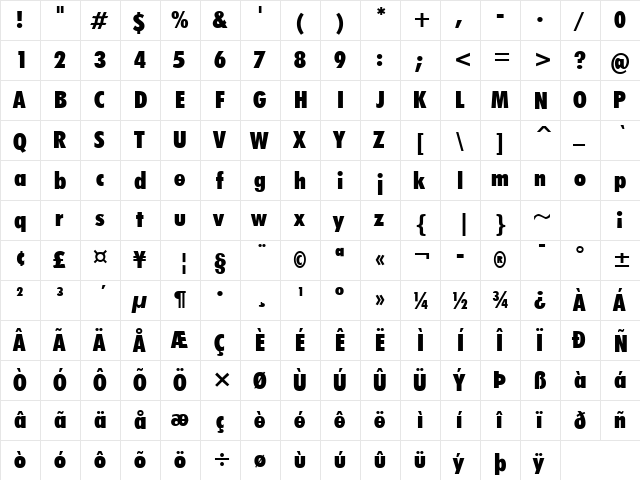
Futuri Condensed Extra Bold Font Preview
Design Context for Futuri Condensed Extra Typeface
Futuri Condensed Extra channels digital-age aesthetics through its sharp, structured letterforms — ideal for brands that want to signal innovation. Its bold stroke weight gives it real presence on the page. Its narrow stance lets it pack a punch even in space-constrained designs.
Pro Tip: Try Futuri Condensed Extra with generous letter-spacing in UI labels and navigation — the geometric forms benefit from room to breathe.